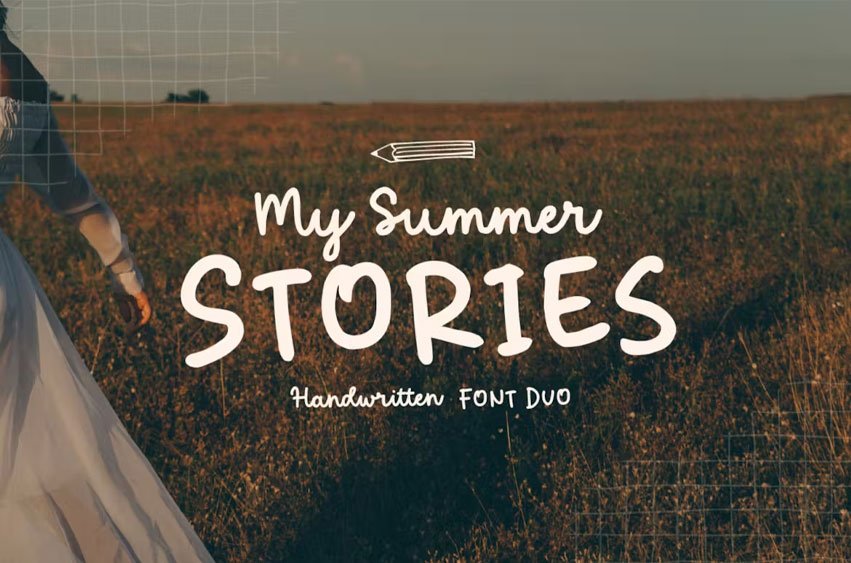
My Summer Stories Font is a delightful font duo that captures the essence of fun and natural handwritten script. Perfect for adding a playful and personal touch to your designs, “My Summer Stories” brings warmth and charm to any project.
- Font Duo: Handwritten & Script